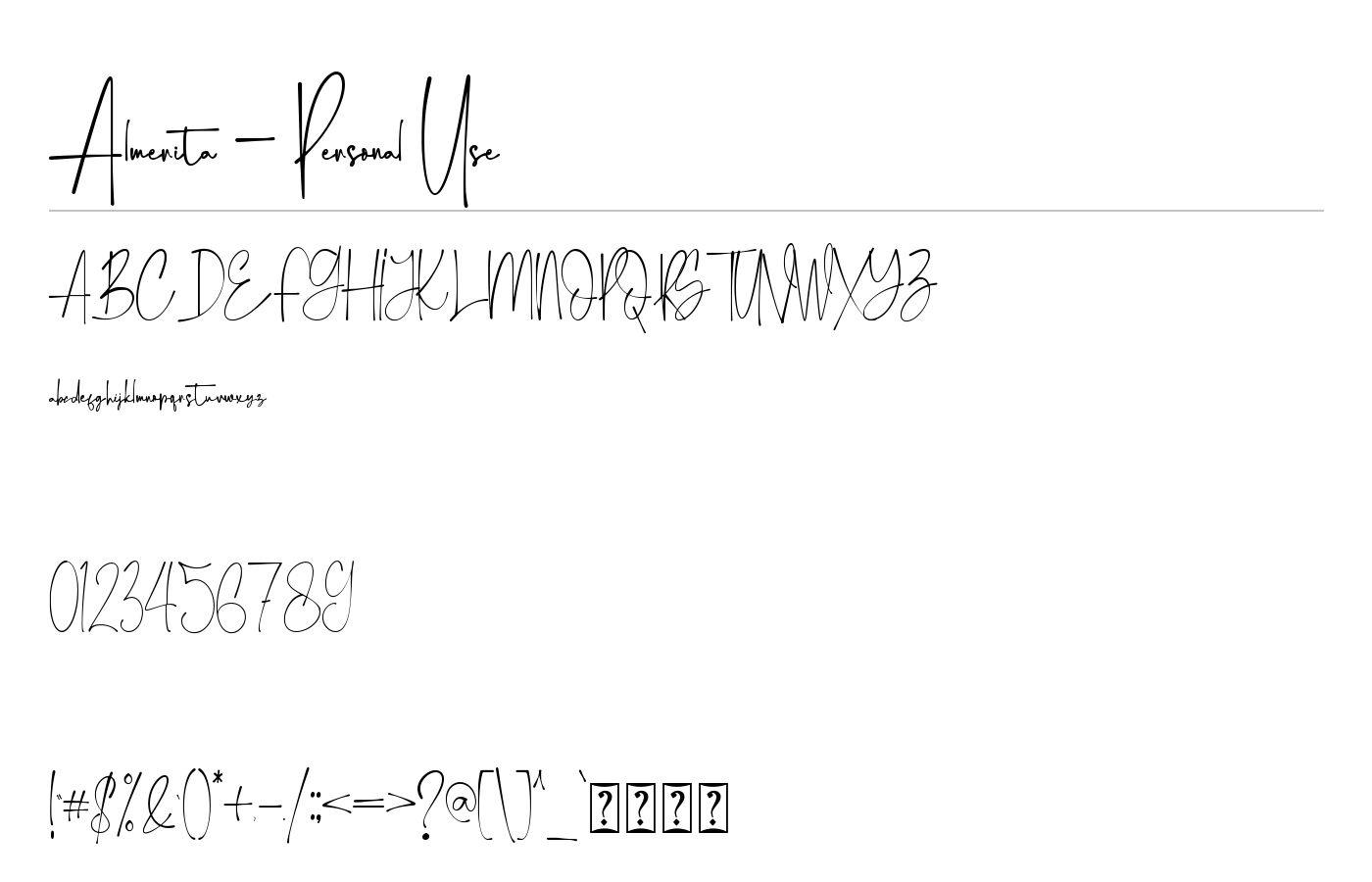
Almerita is a delicate, handwritten script font characterized by its very thin strokes and tall, narrow letterforms that give it an elegant and airy feel. Its whimsical and slightly irregular lines convey a personal, artistic touch, making it ideal for creative projects, invitations, and branding that aim for a refined yet casual vibe. Perfect for designs that need a light, stylish, and sophisticated handwritten look, Almerita adds a unique charm without overwhelming the layout.
Almerita - Personal Use Font
About Almerita - Personal Use Font